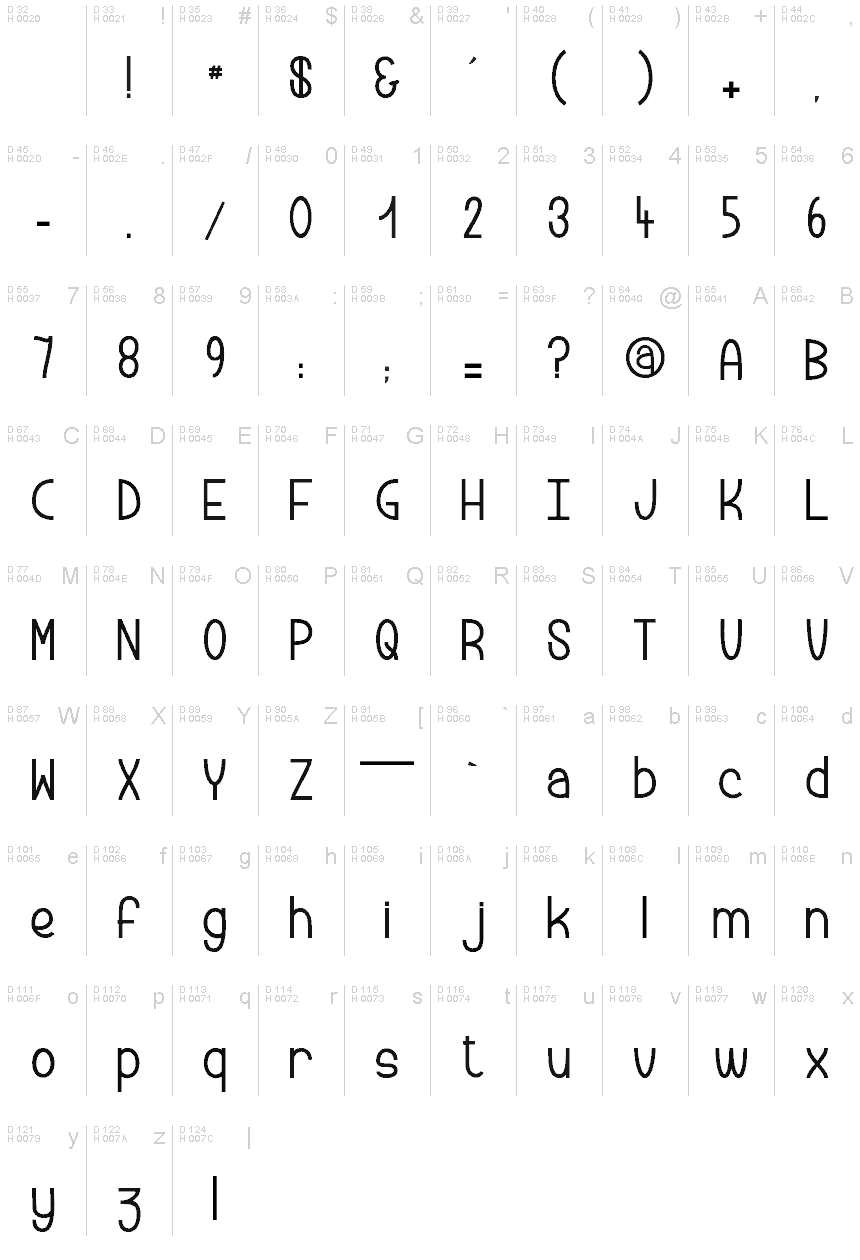
Peanut Butter Cookies
Peanut Butter Cookies, a delightful creation by dcoxy Medina Gregory, brings a playful charm to the display font category. Its comic style exudes whimsy and warmth, reminiscent of hand-drawn letters that you might find in the pages of an illustrated storybook. With a semi-light weight, this font dances between casual and readable, making it an excellent choice for designers seeking to inject a touch of lightheartedness into their projects.
The rounded edges and buoyant character shapes of Peanut Butter Cookies offer an aesthetic appeal that is both engaging and comforting. It's the kind of font that invites smiles and evokes memories of simple pleasures. Whether you're crafting invitations for a fun-filled event, designing quirky logos, or adding personality to your graphic narratives, Peanut Butter Cookies is versatile enough to enhance your creative vision while maintaining legibility and flair.